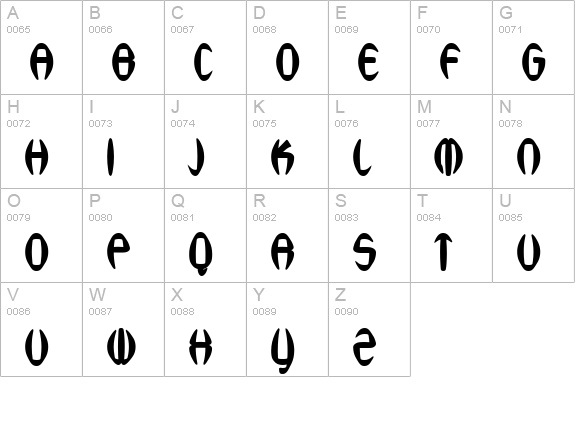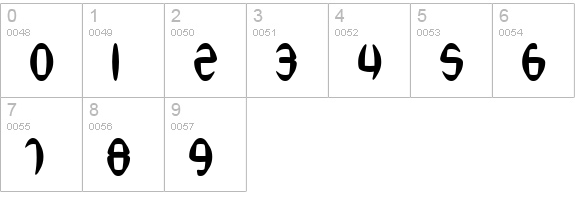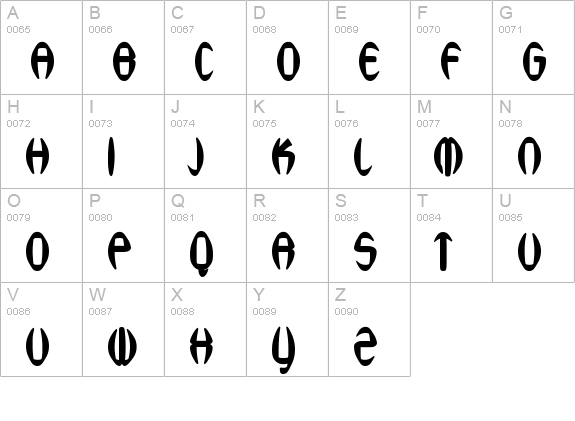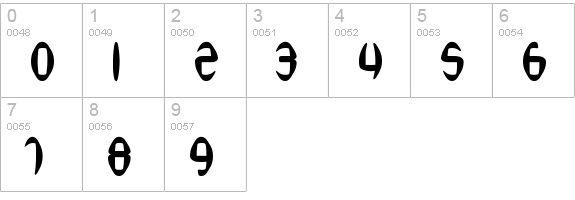
SF Synthonic Pop Bold Font Details
SF Synthonic Pop Bold is a strong, high-contrast variant in the SF typeface family \xE2\x80\x94 well suited to headlines, attention-grabbing titles, and strong calls-to-action.
SF Synthonic Pop Bold is a visually captivating font that effortlessly merges the futuristic elements of science fiction with the catchy melodies of synth-pop. Its bold and commanding presence makes it the perfect choice for any design project that seeks to make a bold statement. This font features sleek lines and sharp angles that exude a sense of modernity and forward-thinking. Its strong and confident appearance is complemented by the harmonious balance between geometric shapes and playful curves. The result is a typeface that captures the essence of both the electronic music scene and the futuristic world it often depicts. SF Synthonic Pop Bold is not only visually striking, but it is also incredibly versatile. Whether you're designing album covers, posters, logos, or even websites, this font will effortlessly add a touch of contemporary flair to your creations. Its bold and legible letterforms ensure that your message will be communicated clearly and effectively. One of the most appealing aspects of SF Synthonic Pop Bold is that it is freely available to download at FontsMarket.com. This means that you can easily incorporate this font into your designs without any financial constraints. It offers designers and creatives the opportunity to experiment and explore endless possibilities without having to worry about licensing fees or restrictions. So, if you're looking to add a touch of futuristic charm to your designs, look no further than SF Synthonic Pop Bold. Its captivating aesthetic and its availability as a free download make it a must-have font for any design enthusiast. Let your creativity soar with this bold and dynamic typeface that brings together the best of science fiction and synth-pop.